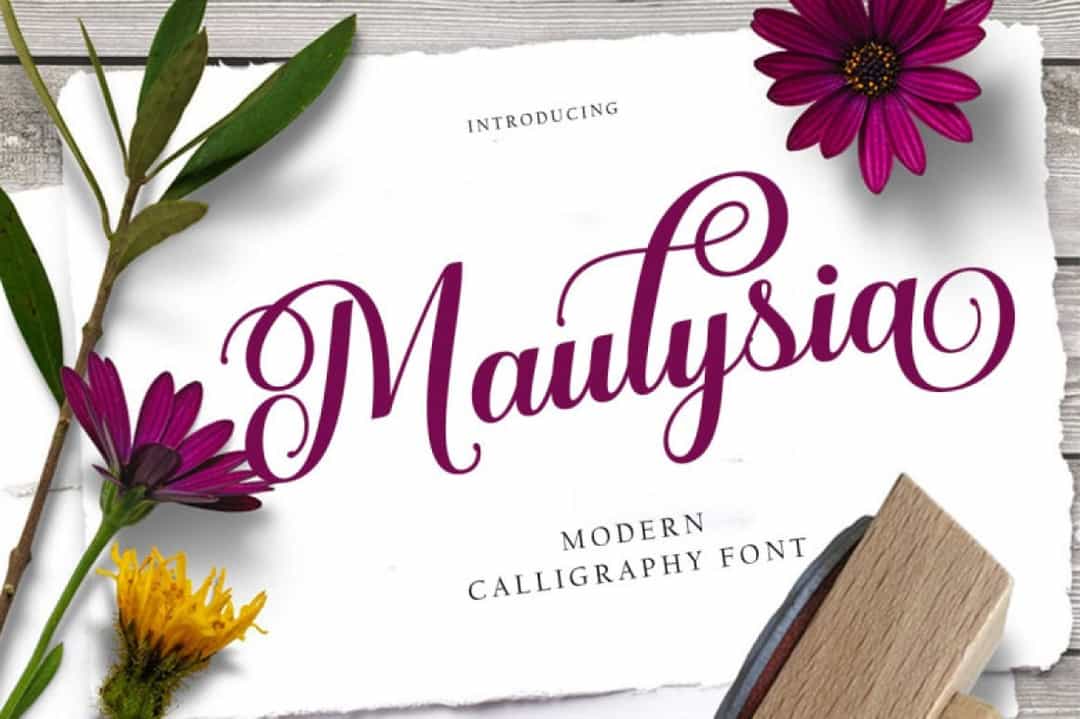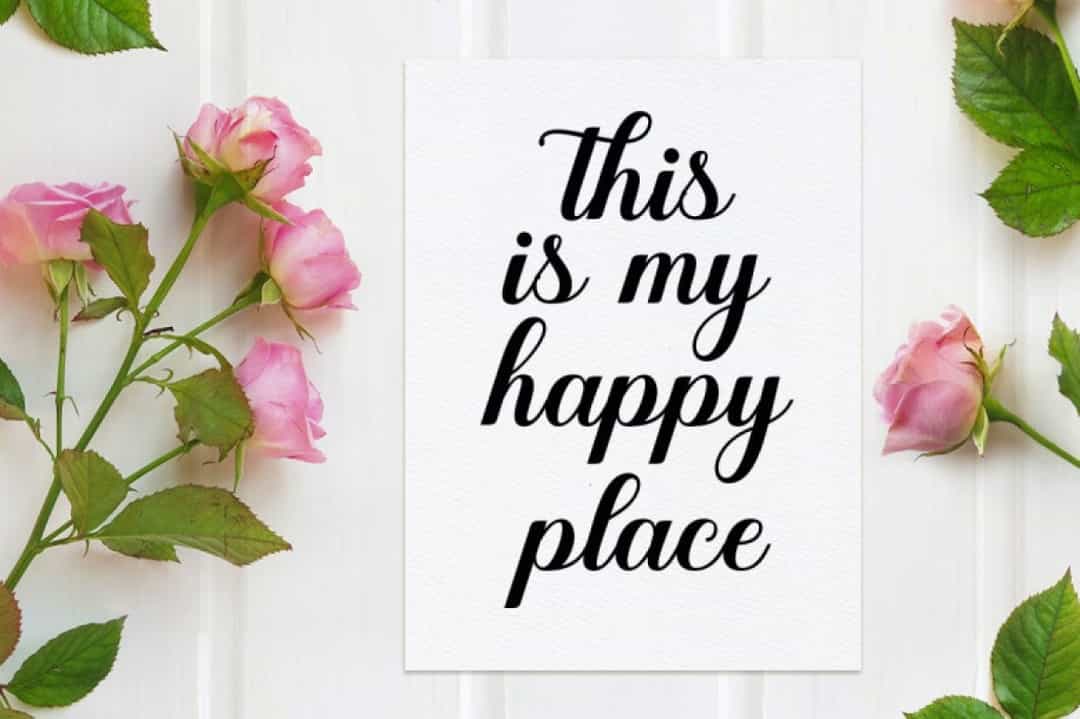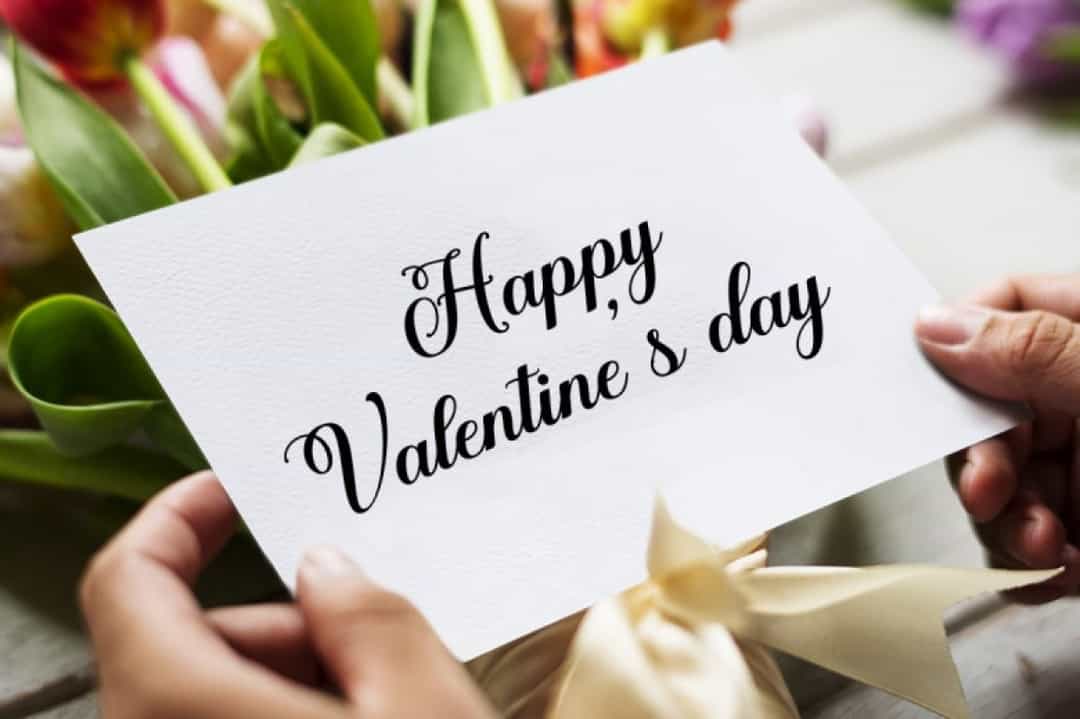
Maulysia is an innovative typeface for calligraphy designed with an elegant and professional style that features alternate characters. Perfect for creating watermarks and signature logos for photography studios or personal logos; great font for initial logo creation as well as brand signatures.